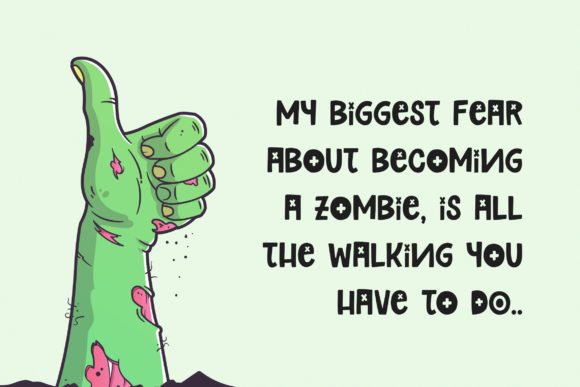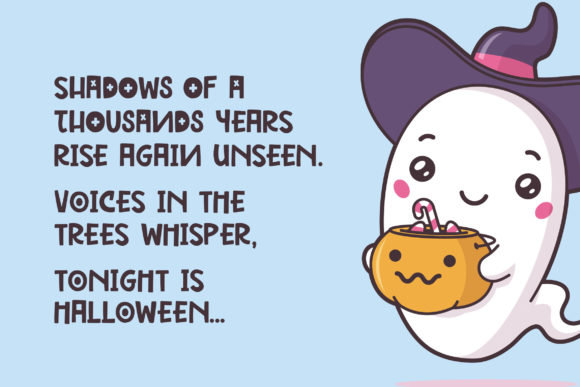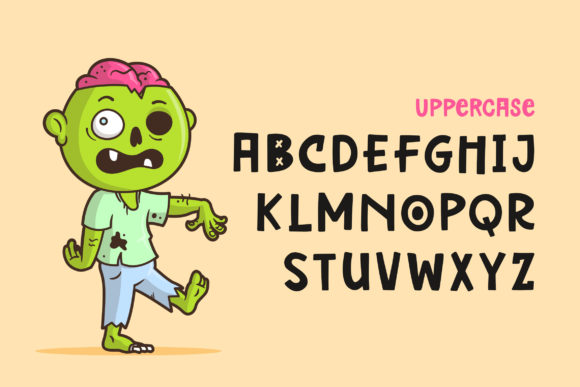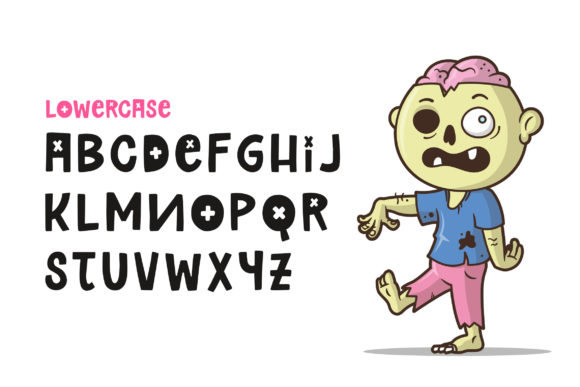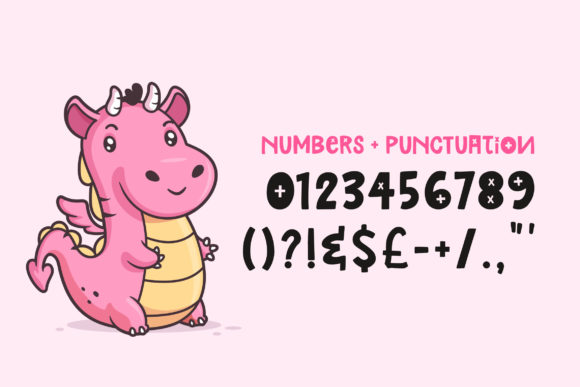
Introduction to Mini Zombie Font
Remember that moment when you’re working on a creative project and the perfect font just slips away? You’re left staring at a blank page, desperate for that one thing that will make your design pop. For designers, finding the right font can be a game-changer. And that’s exactly where the Mini Zombie Font comes in – a cool and unique display font that’s sure to elevate any creation.
Whether you’re working on a project that requires a high-quality design resource or simply want to add some personality to your next graphic, the Mini Zombie Font is an incredible asset to have in your library. With its transparent background and stylish aesthetic, this font is perfect for designers who want to add a touch of creativity to their work.
Key Features of Mini Zombie Font
- High-quality font design with a unique, quirky style perfect for creative projects.
- Features a transparent background, allowing for easy integration into various design elements.
- Includes a comprehensive character set, including uppercase and lowercase letters, numbers, and punctuation marks.
- Designed with a resolution of 300 DPI, ensuring crisp and clear display on various devices and screens.
- Perfect for adding a touch of horror or playfulness to your design projects, from posters to logos and more.
Honest Review: Mini Zombie Font
I recently had the chance to play around with the Mini Zombie Font, and I have to say, it’s a unique addition to any design project. The font itself is a high-quality, bold display font that’s perfect for creating eye-catching titles and headlines.
Here are some things that work well with this font: ✨
- The transparent background makes it easy to customize and integrate into any design.
- The font is well-suited for creative projects, such as horror-themed graphics or sci-fi illustrations.
However, there are some limitations to keep in mind: ⚠️
- The font may not be suitable for large blocks of text, as it can be quite difficult to read.
- The design may not be to everyone’s taste, as it’s quite bold and eye-catching.
Overall, I think the Mini Zombie Font is a fun and creative addition to any design project. While it may not be suitable for every use case, it’s a great resource for designers who are looking for something unique and eye-catching. With a little bit of creativity, this font can really bring a design to life.
To get the most out of the Mini Zombie Font, use it in creative projects that require a high-quality, unique design resource. This font is perfect for adding a touch of whimsy to your designs. Experiment with different font sizes, styles, and combinations to create a truly unique look.
The Mini Zombie Font is ideal for use in various design projects, including:
- Spooky or Halloween-themed designs
- Horror movie or video game promotions
- Creepy or eerie atmosphere designs
- Any design project that requires a unique, high-quality font